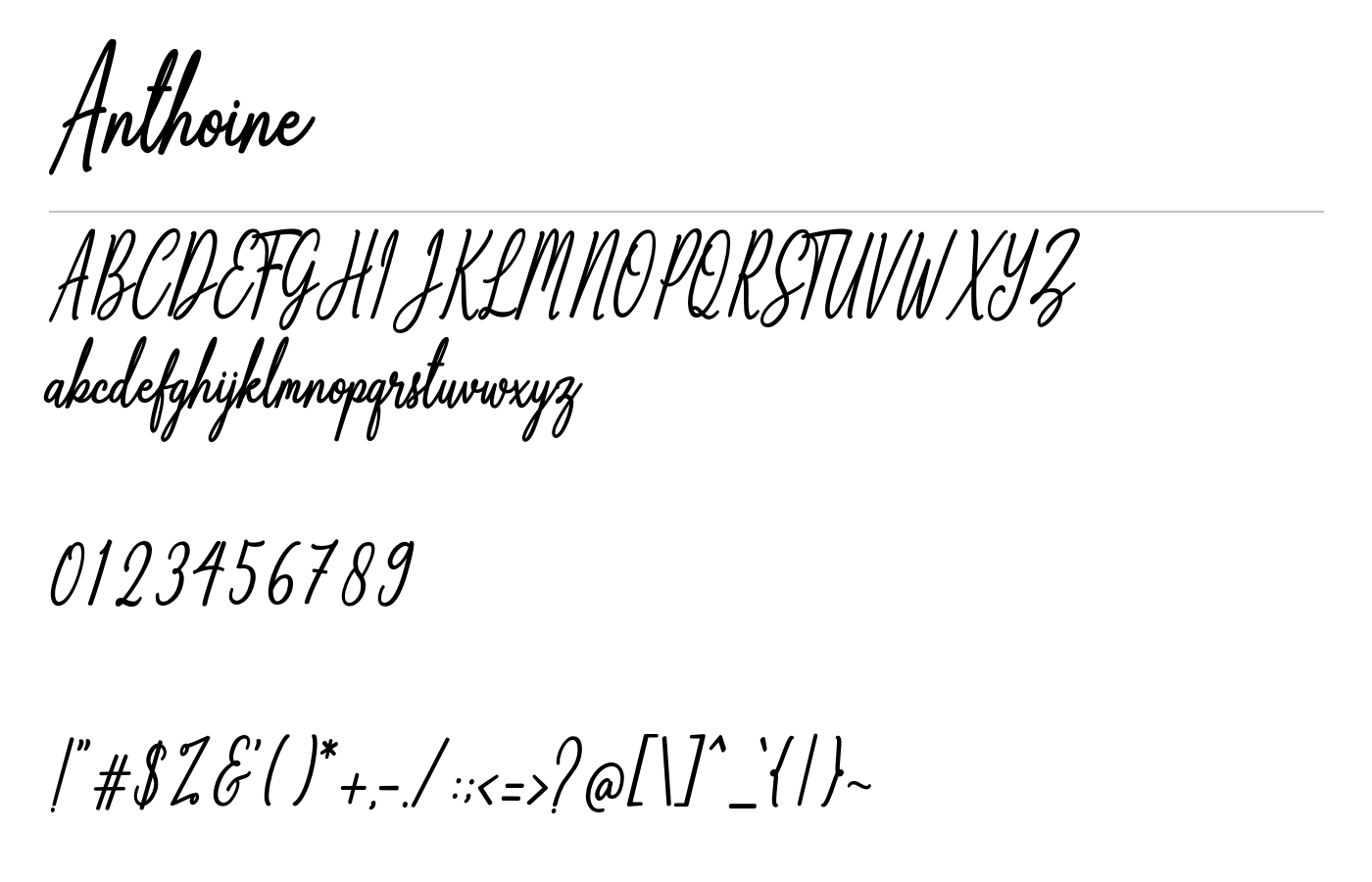
Anthoine is a sleek, elegant script font characterized by its delicate, flowing strokes and slightly condensed letterforms, giving it a refined and stylish appearance. The font features a consistent, moderate contrast in stroke weight with smooth, organic curves and a handwritten feel, making it perfect for adding a personal yet sophisticated touch to branding, invitations, and editorial designs. Its tall x-height and legible numerals enhance readability while maintaining a chic and modern personality.
Anthoine Font
About Anthoine Font